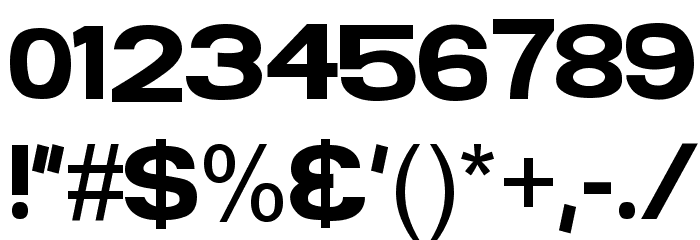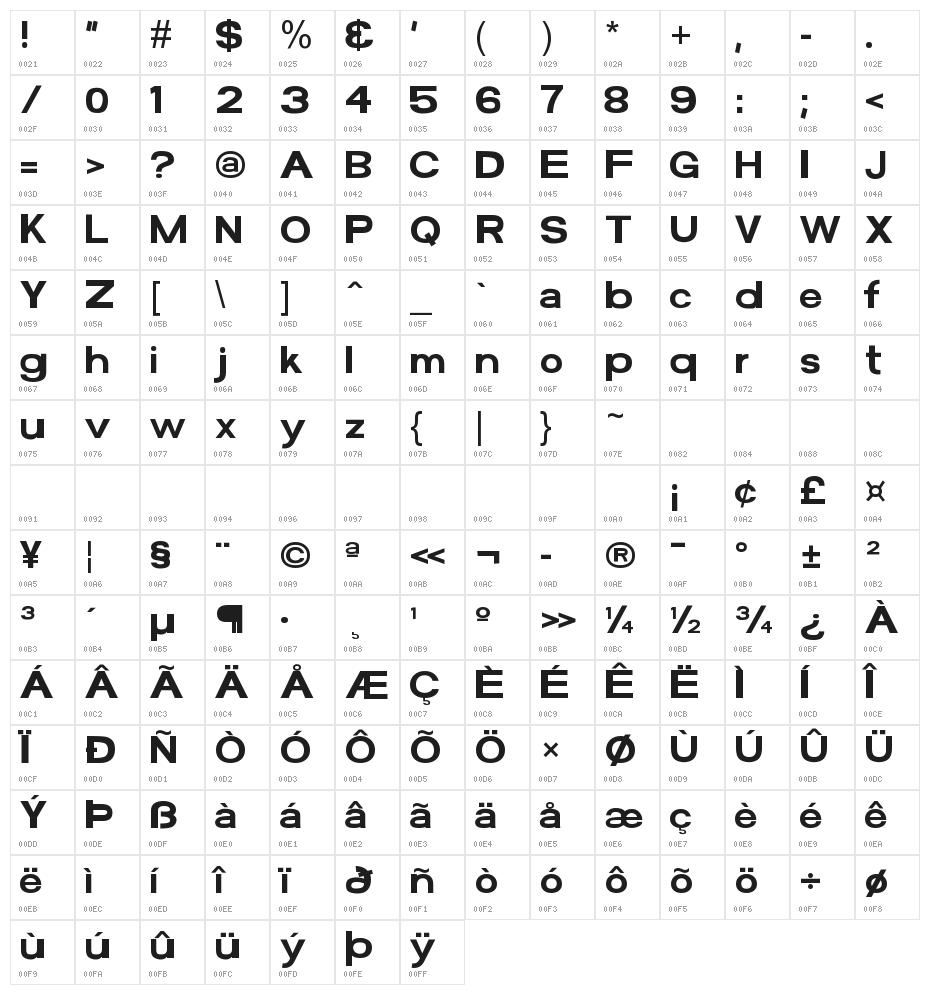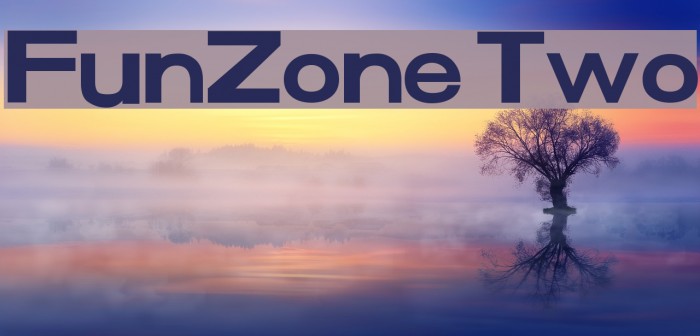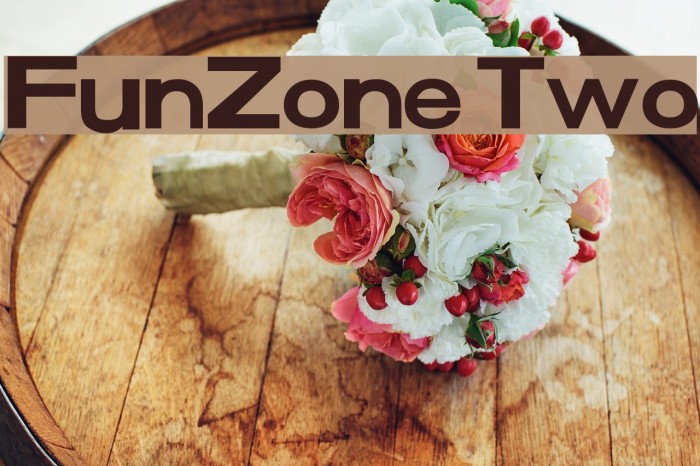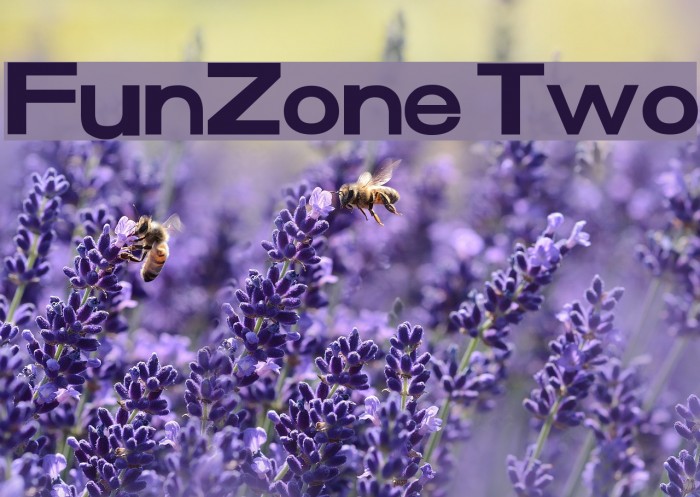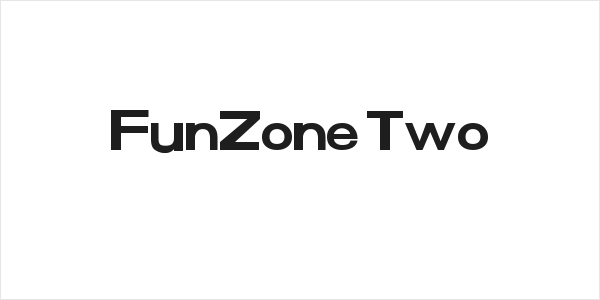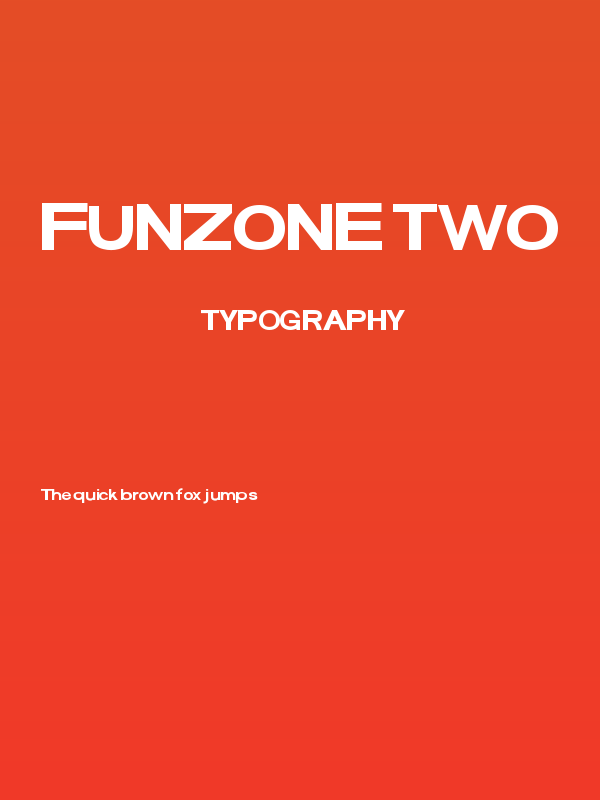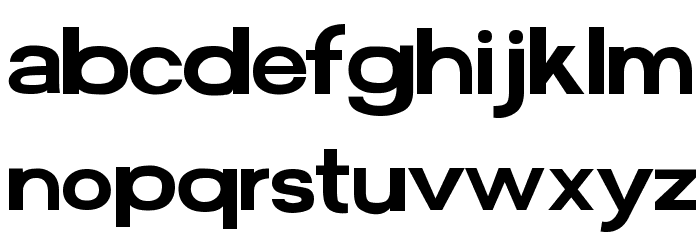
FunZone Two Font
FunZone Two Description
This font presents a bold and modern aesthetic with clean lines and a strong presence. The uppercase and lowercase letters are well-proportioned, maintaining a consistent weight throughout. The numerals are clear and easy to read, making them suitable for various applications. Special characters are included, adding versatility to the font's usage. The overall design is sleek and contemporary, making it ideal for projects that require a modern touch. Its boldness ensures that it stands out, while the simplicity of its design keeps it versatile and adaptable.
Use CaseHeadlines, Logos, Advertising
Proposed ProjectsIdeal for branding, advertising, headlines, and digital media projects.